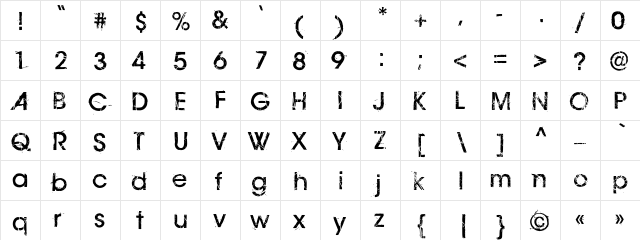
Affliction Medium
| Foundry | Jeff Finley of Go Media Inc. |
| Designer | Jeff Finley of Go Media Inc. |
Design Context for Affliction Typeface
Affliction takes a measured approach to typography — its balanced proportions and neutral character make it a reliable workhorse for both digital and print work.